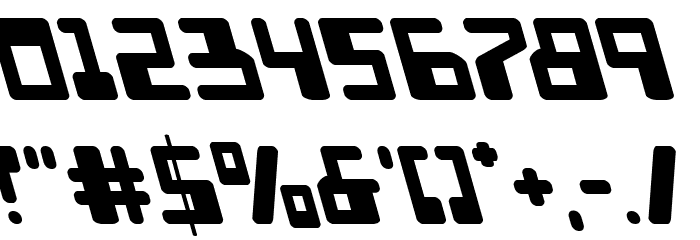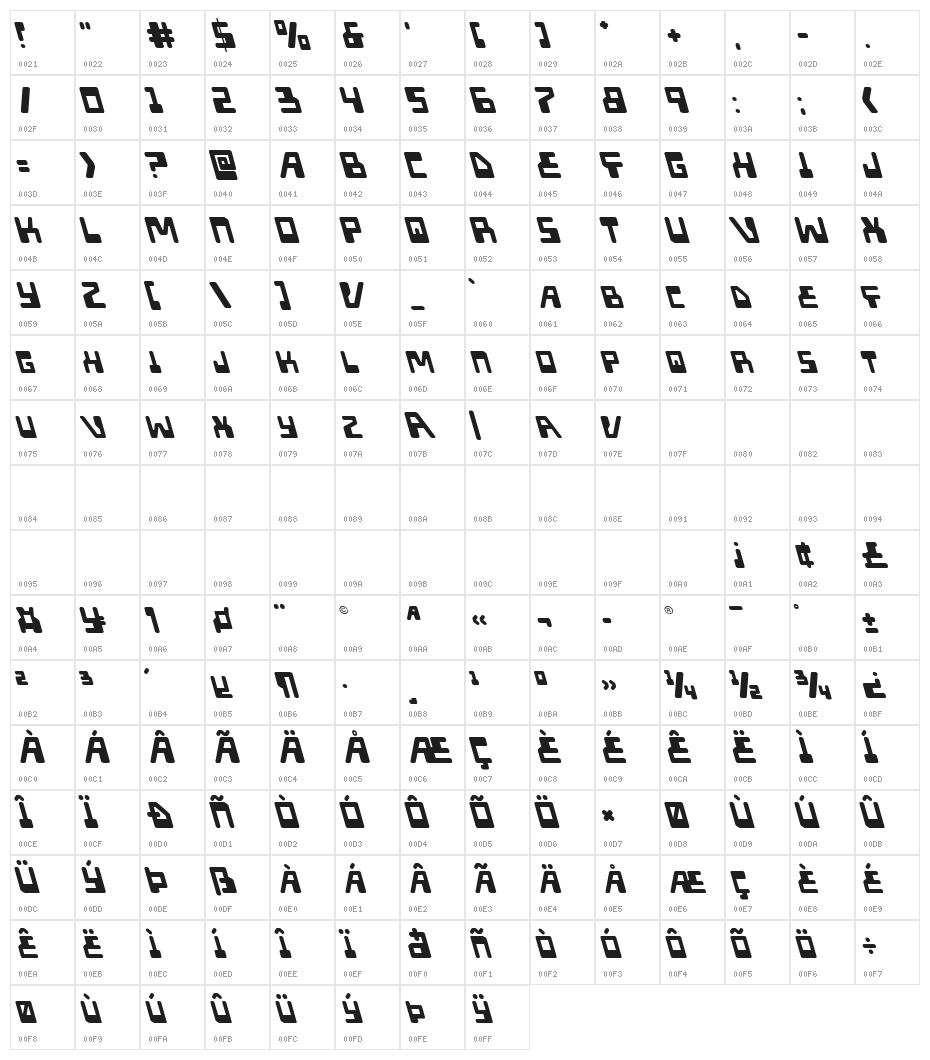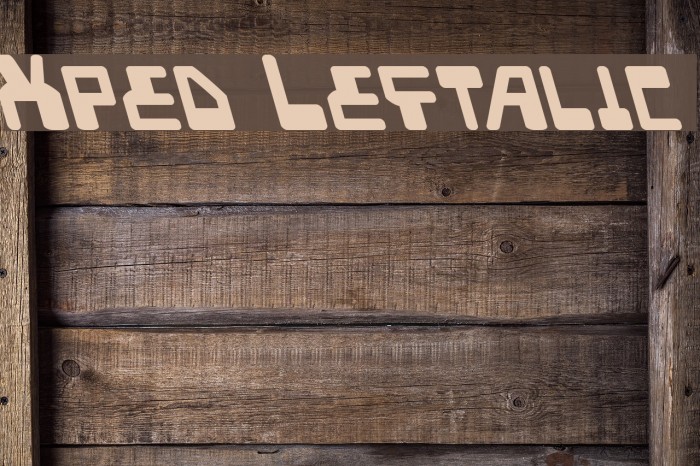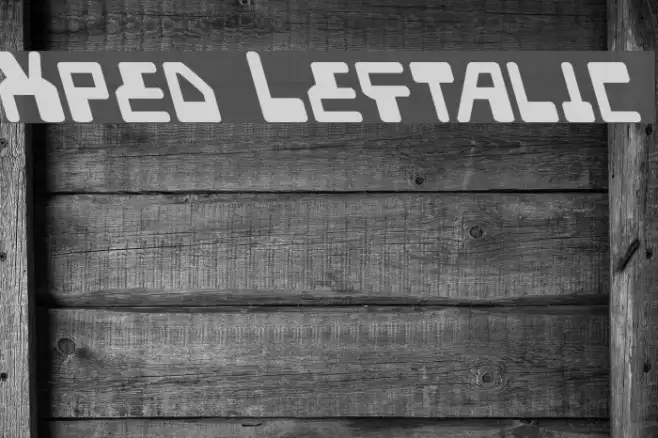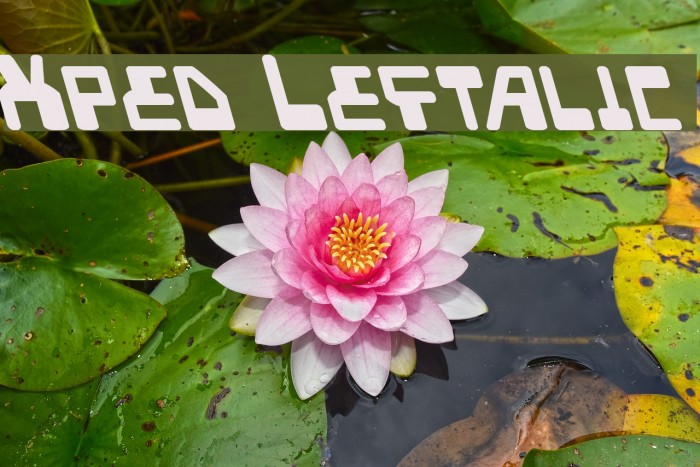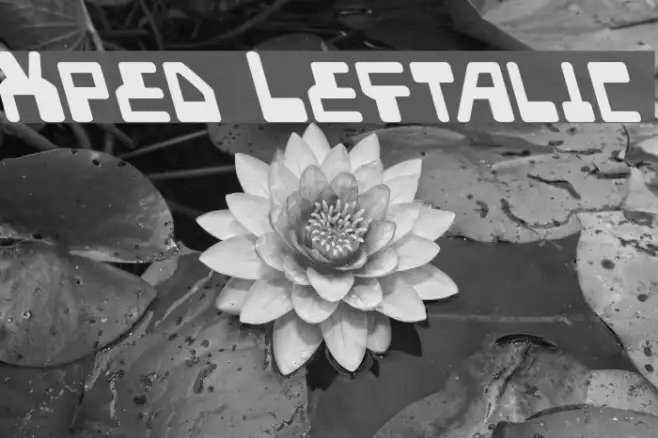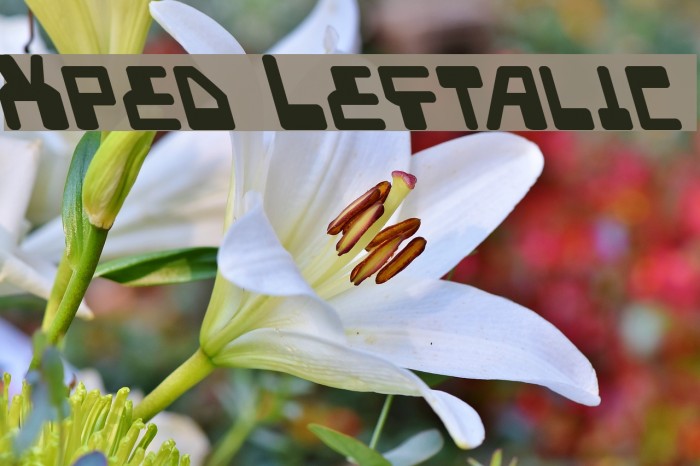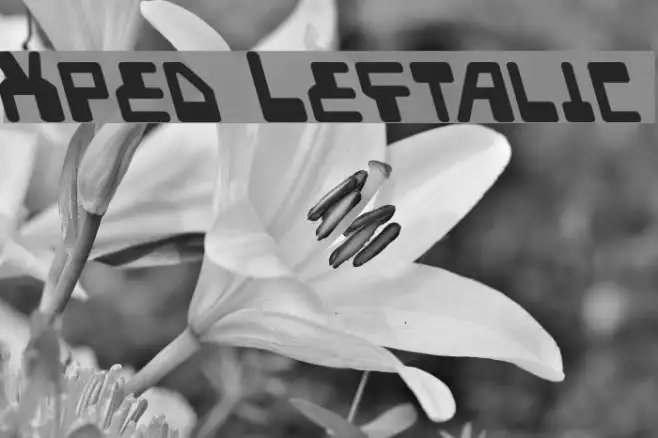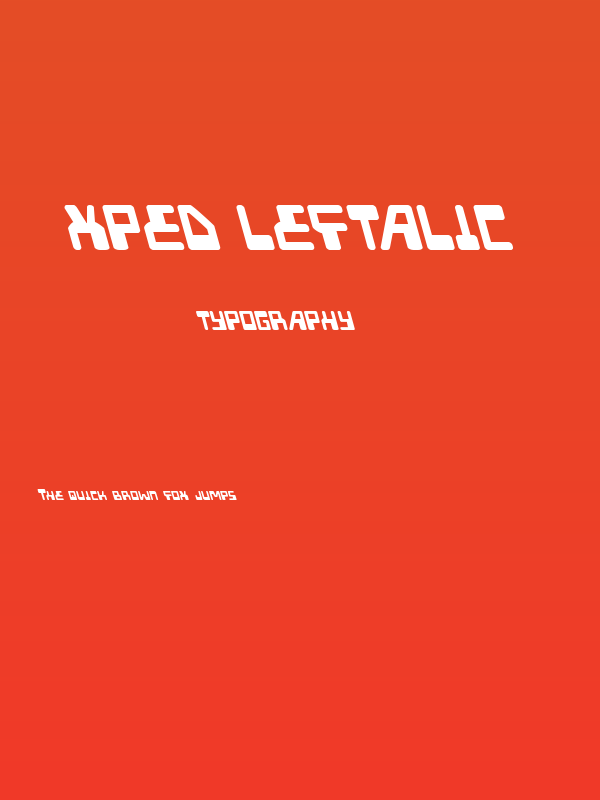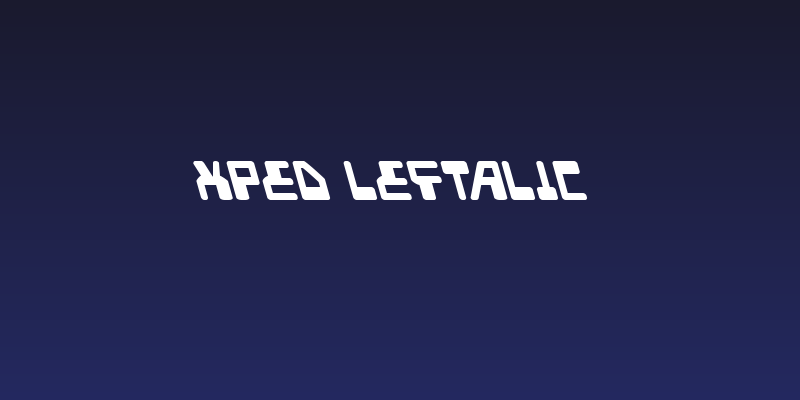
Xped Leftalic Font
Xped Leftalic Description
This font features a bold, angular design with a futuristic and dynamic appearance. The characters are slightly slanted, giving a sense of motion and speed. The strokes are thick and consistent, creating a strong visual impact. The geometric shapes and sharp edges contribute to its modern and edgy style. The font maintains uniformity across uppercase, lowercase, and numerals, ensuring readability while retaining its distinctive look. Special characters are integrated seamlessly, matching the overall aesthetic.
| Proposed Projects | Ideal for technology branding, sports team logos, video game titles, and sci-fi themed posters. |